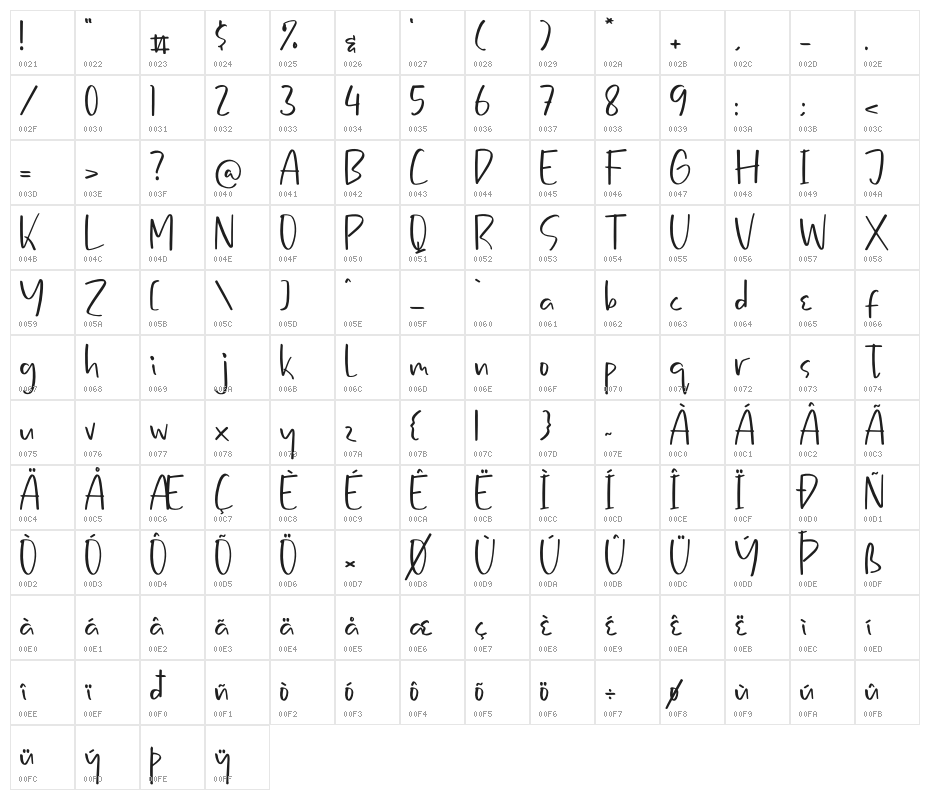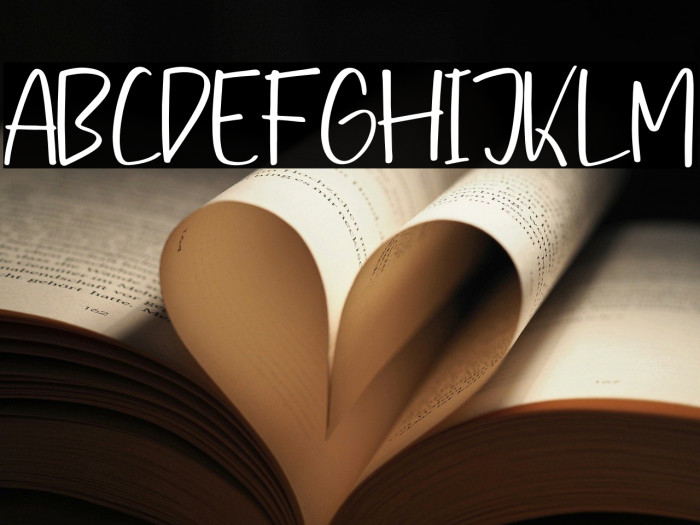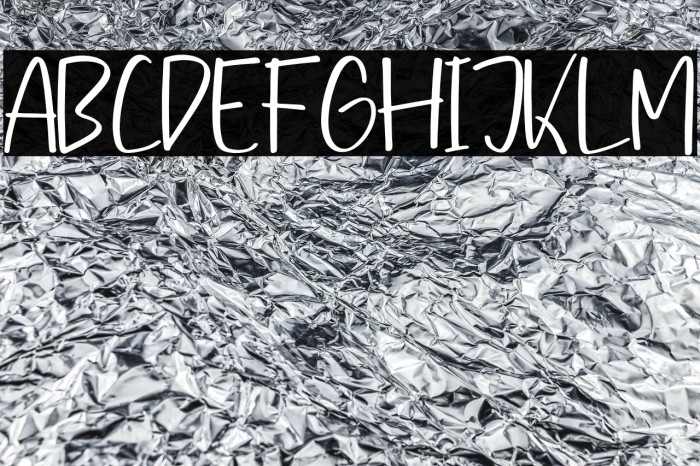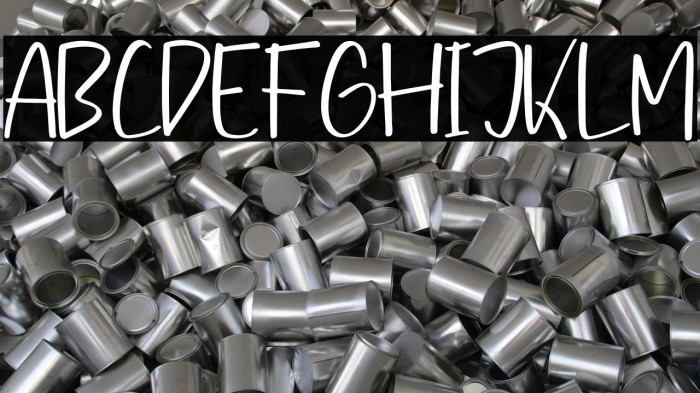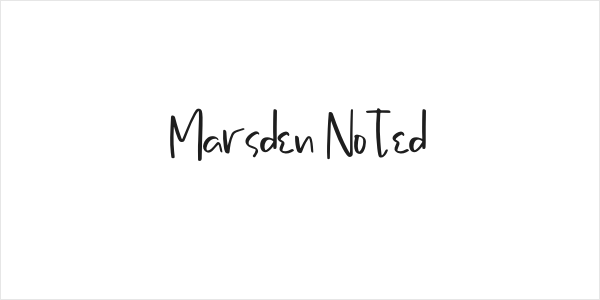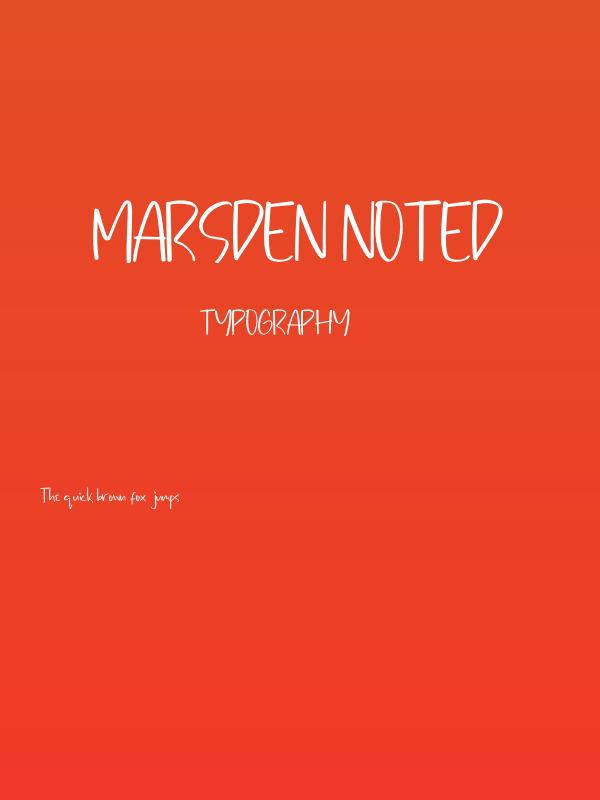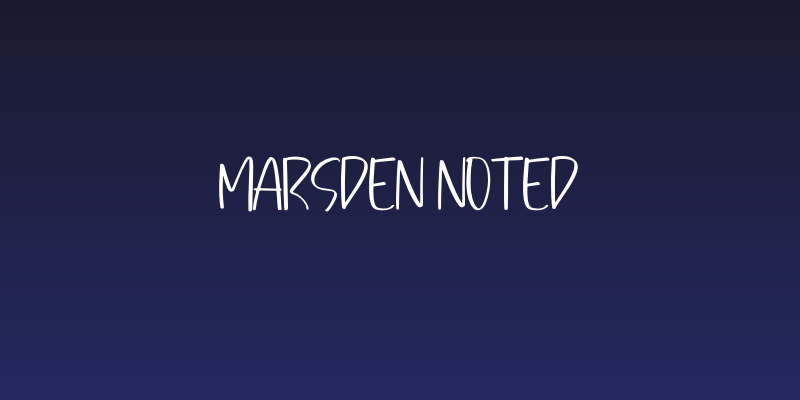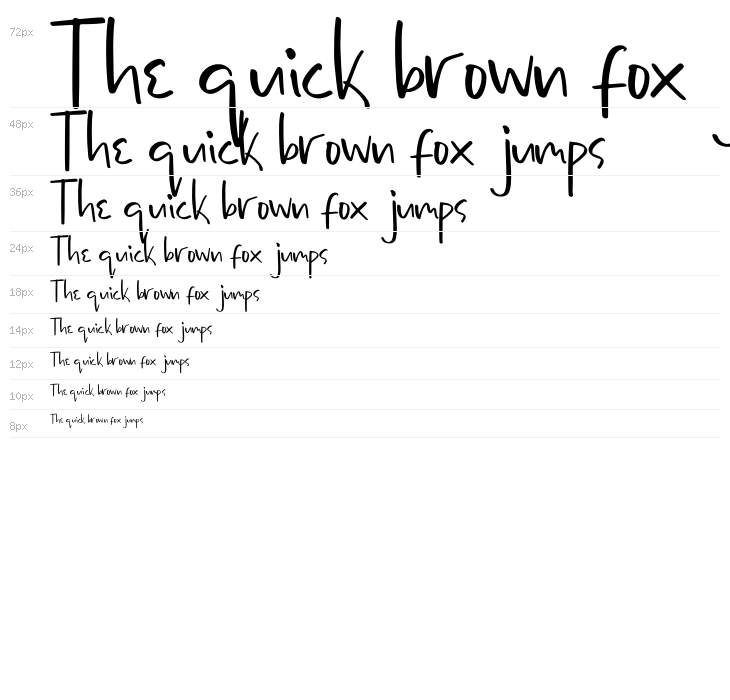
Marsden Noted Font
Marsden Noted Description
A playful handwritten font with a casual and informal style, featuring irregular strokes and a natural flow.
| Overall Style | Casual, Informal |
| Use Case | Logos, Invitations, Personal projects |
| Proposed Projects | Greeting cards, personal notes, informal branding. |